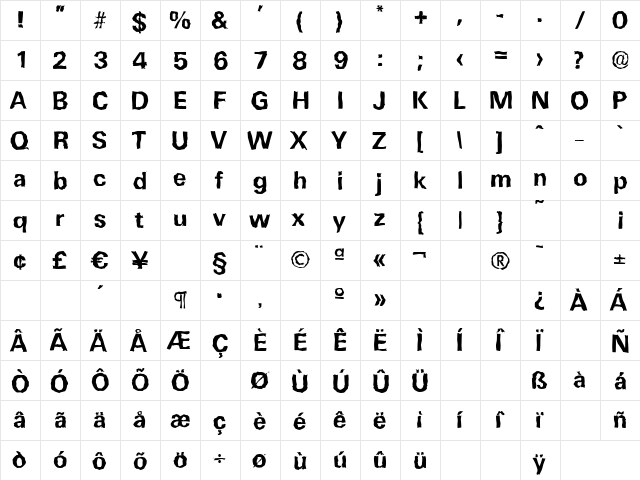
UltimateRandom Bold
Design Context for UltimateRandom Typeface
UltimateRandom is a composed and adaptable typeface that performs quietly and consistently across a wide range of design contexts. The heavy weight commands attention and anchors typographic hierarchies.
Pro Tip: Use UltimateRandom in both headline and body roles to test its range before committing to a single application.